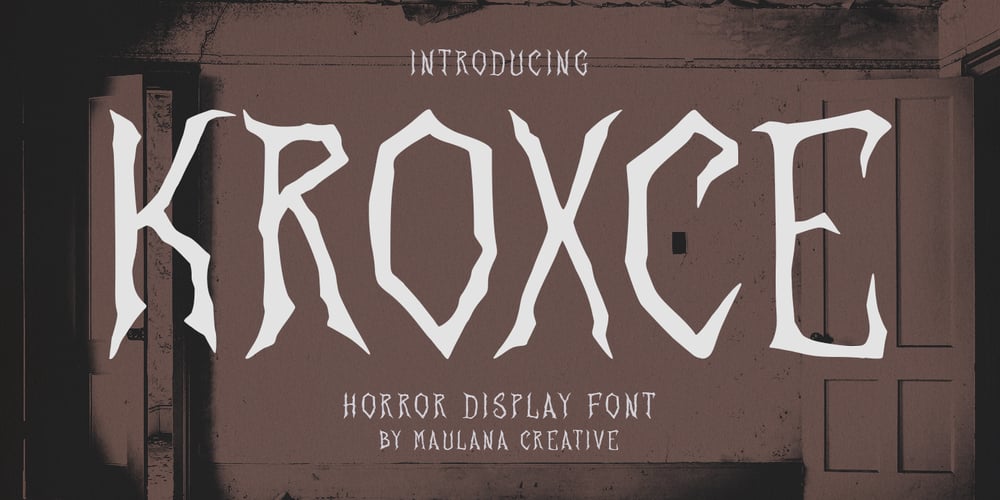
MC Kroxce
MC Kroxce font
MC Kroxce Font Family was designed by Gilang Maulana and published by Maulana Creative. MC Kroxce contains 1 styles and family package options. Kroxce is a Horror Vibe Decorative display font. With Bold Sharp stroke, Upright and fun character with a bit of ligatures. To give you an extra creative work. Kroxce font support multilingual more than 100+ language. This font is good for logo design, Social media, Movie Titles, Books Titles, a short text even a long text letter and good for your secondary text font with Script. Make a stunning work with Kroxce font.